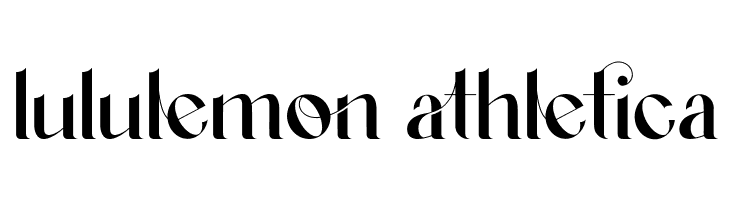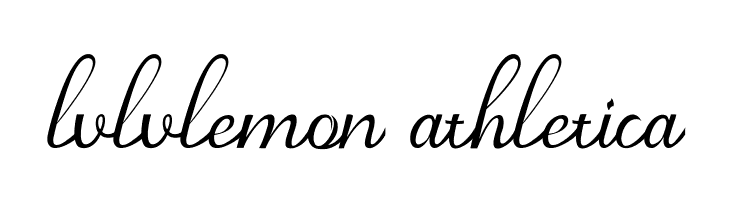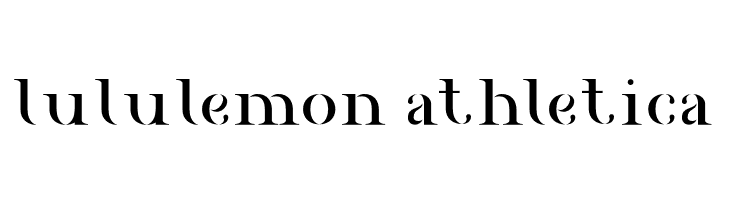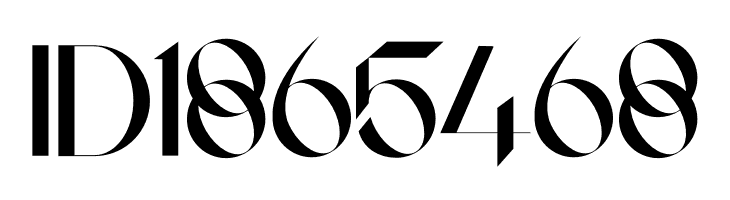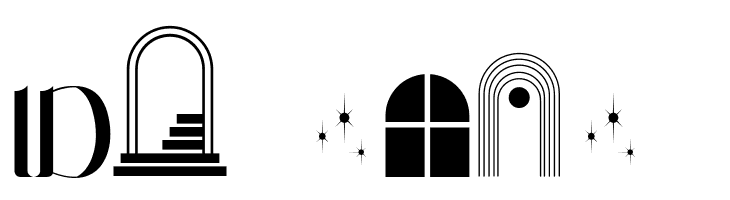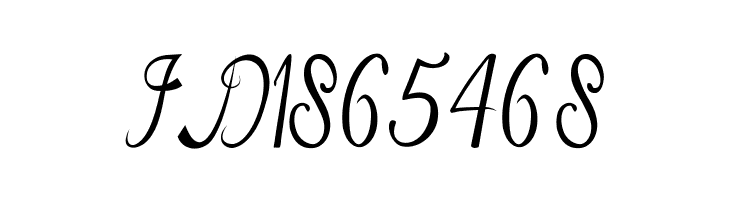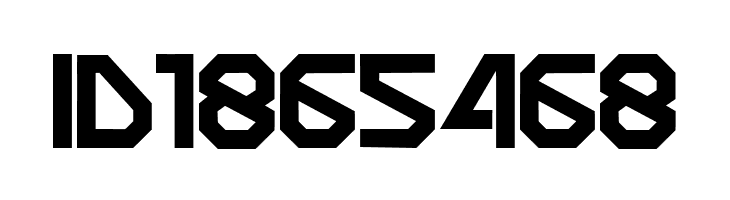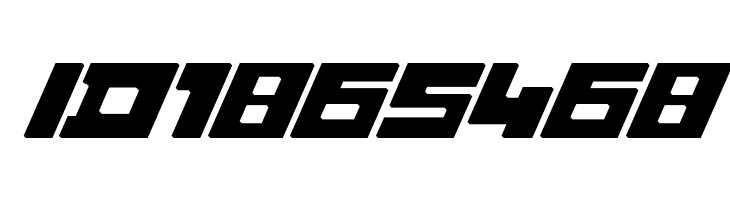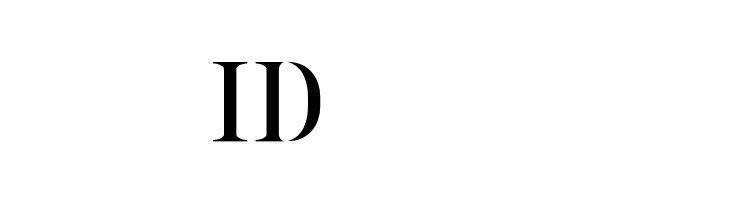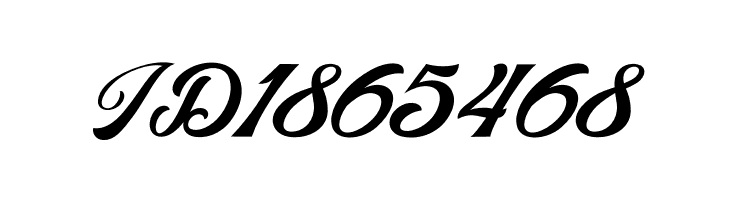
A playful, bold, hand-drawn uppercase font with a casual and friendly feel.
A sophisticated cursive font with elegant, flowing strokes.
A modern, high-contrast font with elegant serifs and artistic flourishes.
A bold, angular font with a futuristic and dynamic style.
A bold, angular font with a futuristic and dynamic design.
A bold, geometric font with sharp angles and a futuristic style.
An elegant script font with flowing, cursive letterforms and ornate details.
A modern, high-contrast font with elegant serifs and artistic special characters.
A modern serif font with bold strokes and elegant curves.
A flowing, elegant script font with ornate uppercase and harmonious lowercase letters.